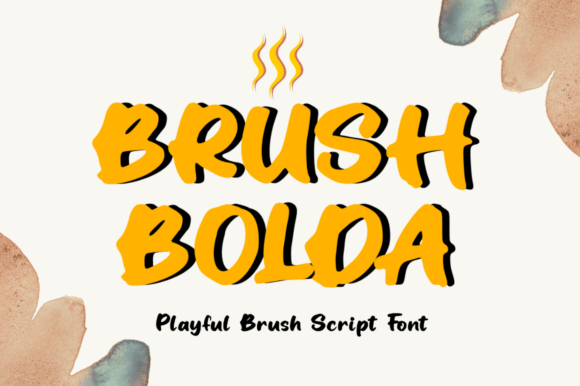
Introduction to Brushbolda Font
Brushbolda is a dynamic, thick-stroked brush script font that feels hand-painted yet neat.
With friendly curves and natural bounce, it’s perfect for headlines, posters, product packaging, or anything that needs personality and punch It maintains readability while showcasing artistic charm.
Why Choose Brushbolda Font?
Brushbolda Font offers exceptional quality and versatility, making it a valuable addition to your design toolkit. Whether you’re creating for personal projects or commercial use, Brushbolda Font delivers professional results.